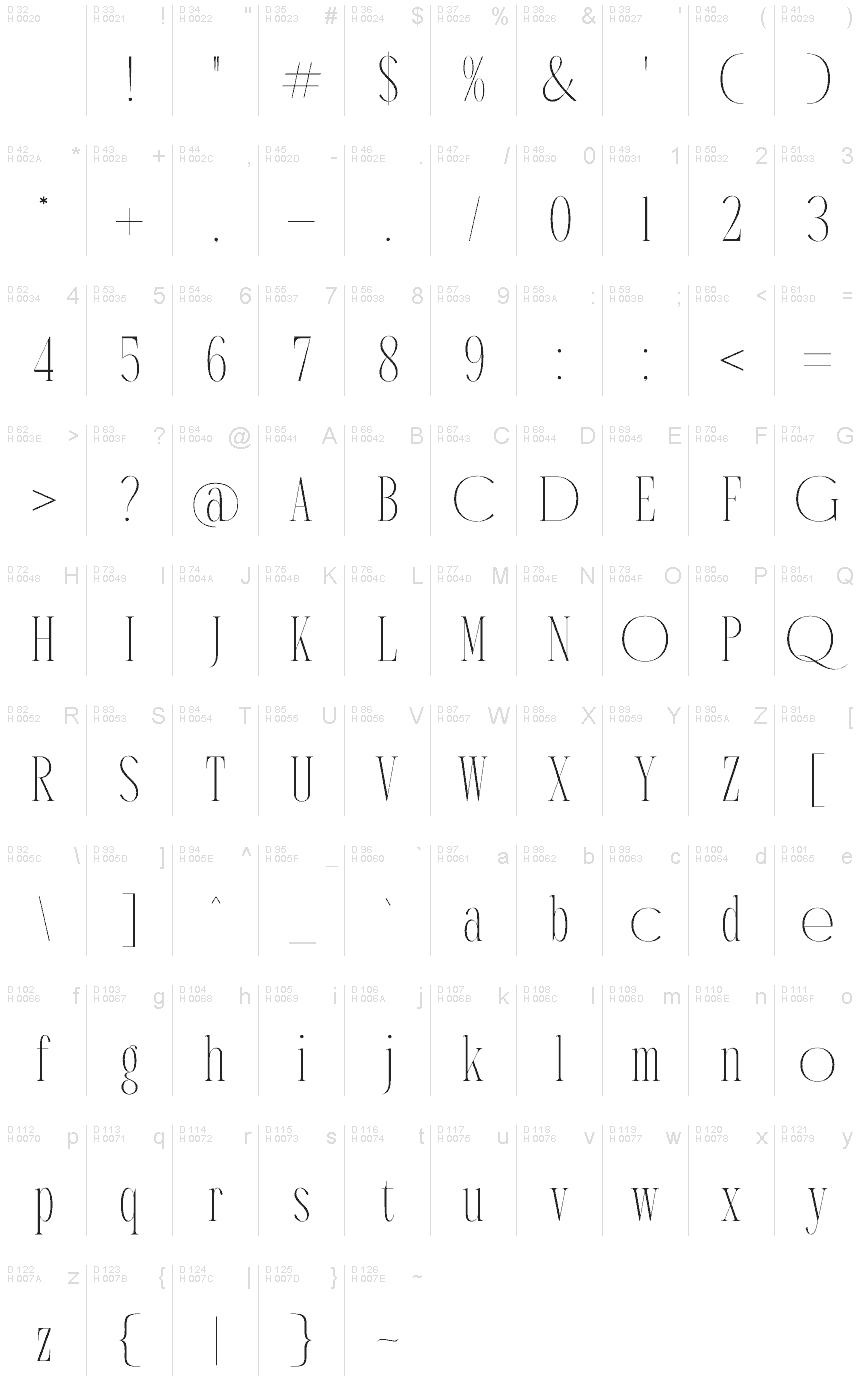
Meliodash
Meliodash font by Storytype Studio is a light, condensed serif typeface with minimalist features and an overall modern backdrop, that can make any textual project look elegant and sophisticated instantly. Its simple characters appear sleek and professional capturing the attention of readers or viewers as they easily decipher the various displayed words.